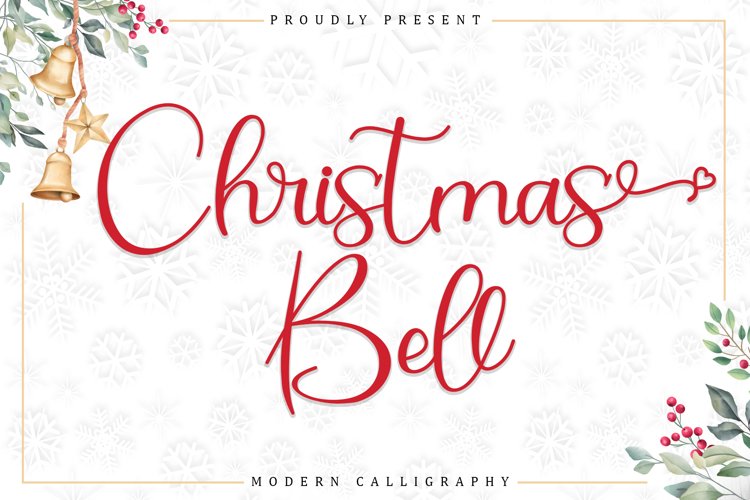
Best Font Christmas Bundle
This font can make your writing and brand elegant or beautiful is great for unique branding, photo overlays, watermark, greeting cards, posters, business cards, invitations, weddings, photography, fashion, apparel, letter, stationery, etc.
A wide range of swashes (a-z), alternates (a-z), ligature, and support multilingual are included so that you can give your logo or name a custom, hand-calligraphy look.
Include more than 80 FONT in 42 Typeface
1. Style Regular and Italic
2. Uppercase and Lowercase
3. Alternate, Titling, and Swash
4. Number
5. Punctuation
6. Multilingual